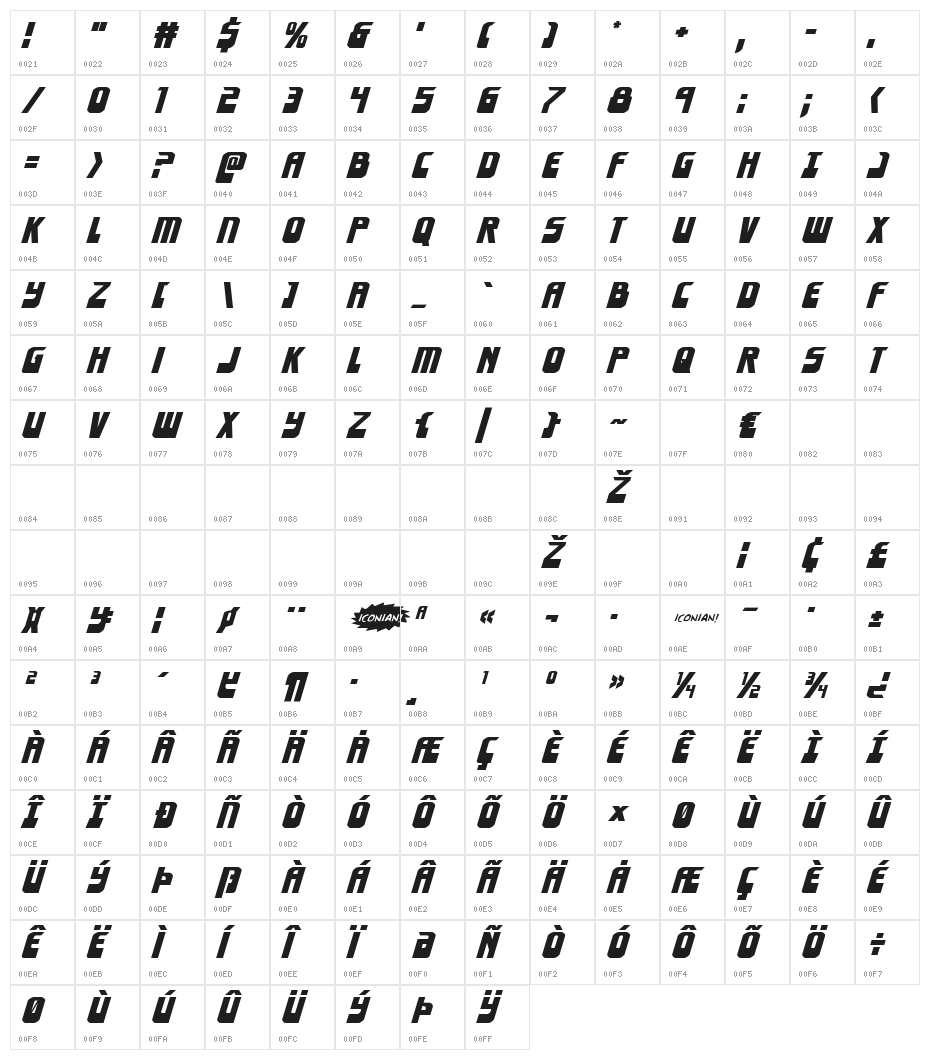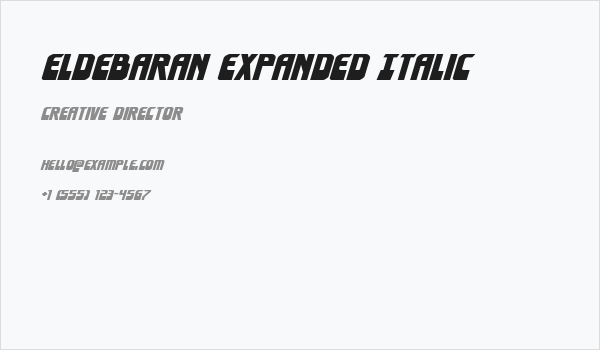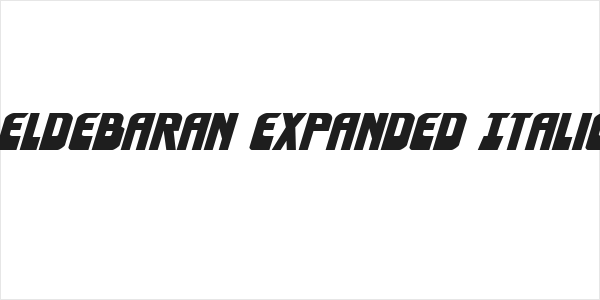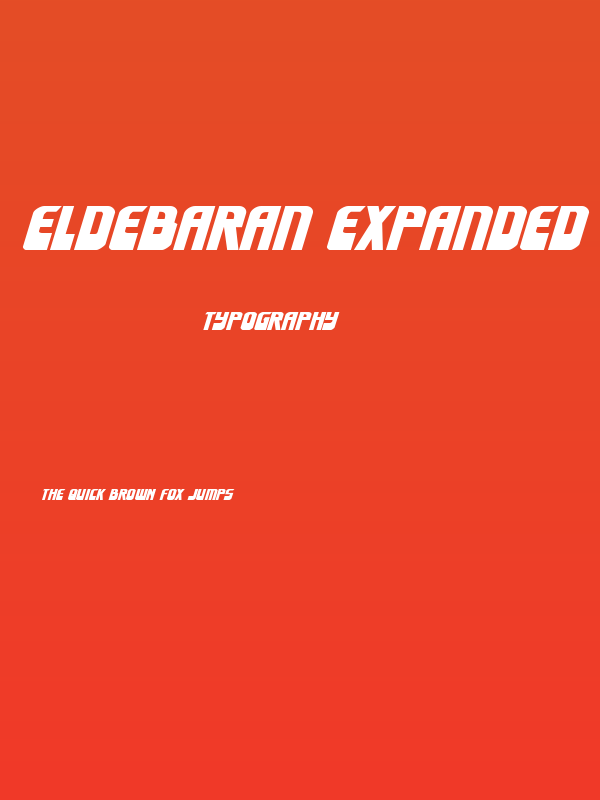
Eldebaran Expanded Italic Font
Eldebaran Expanded Italic Description
This font features a bold and dynamic design with an italic slant, giving it a sense of motion and energy. The characters are expanded, providing a wide and impactful appearance. The strokes are thick and consistent, contributing to a strong visual presence. The angular and geometric shapes of the letters add a modern and futuristic feel, making it suitable for attention-grabbing designs. The font maintains a uniform stroke width, ensuring readability while emphasizing its bold style.
| Proposed Projects | Ideal for sports branding, automotive designs, futuristic themes, and dynamic posters. |